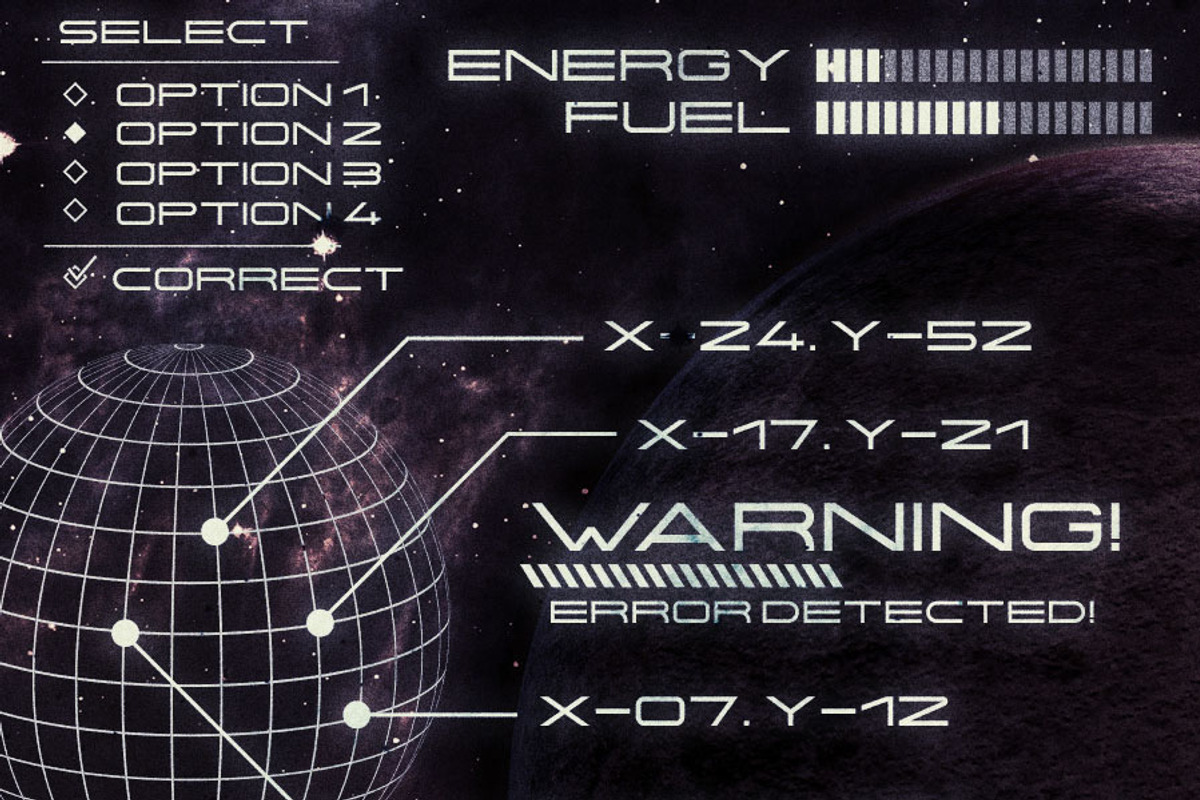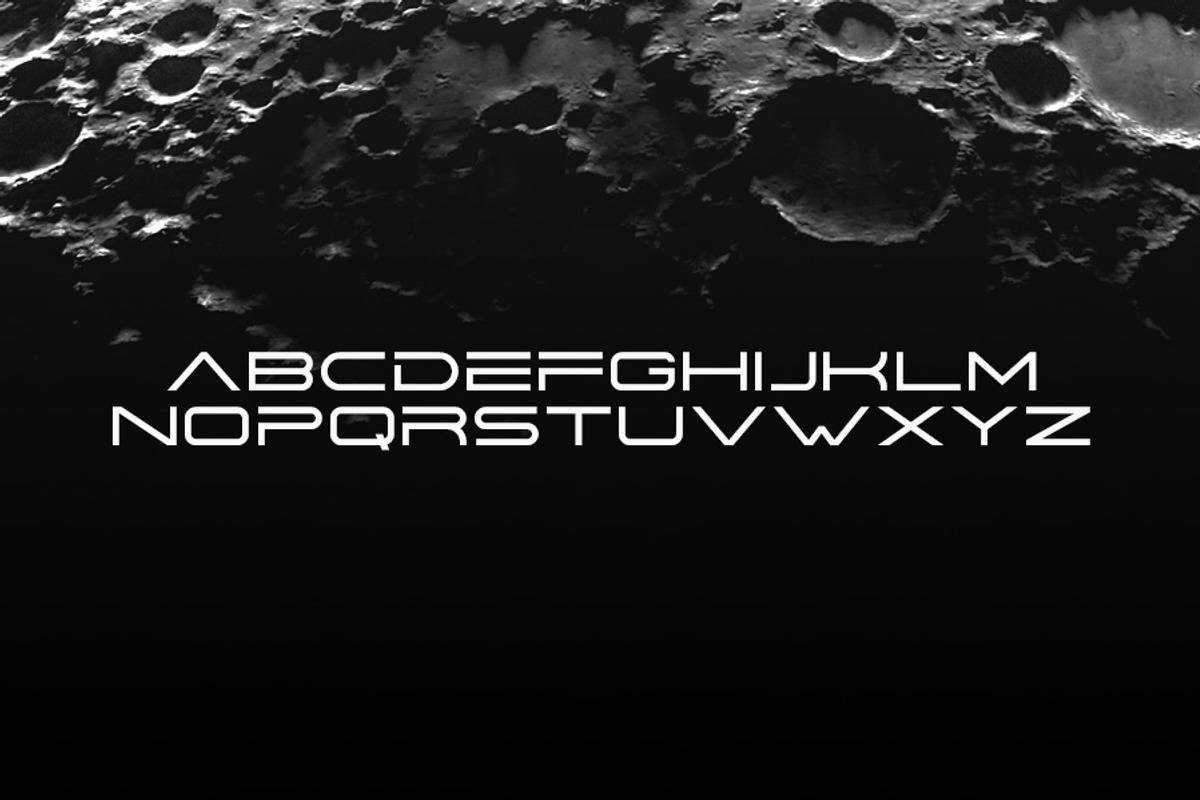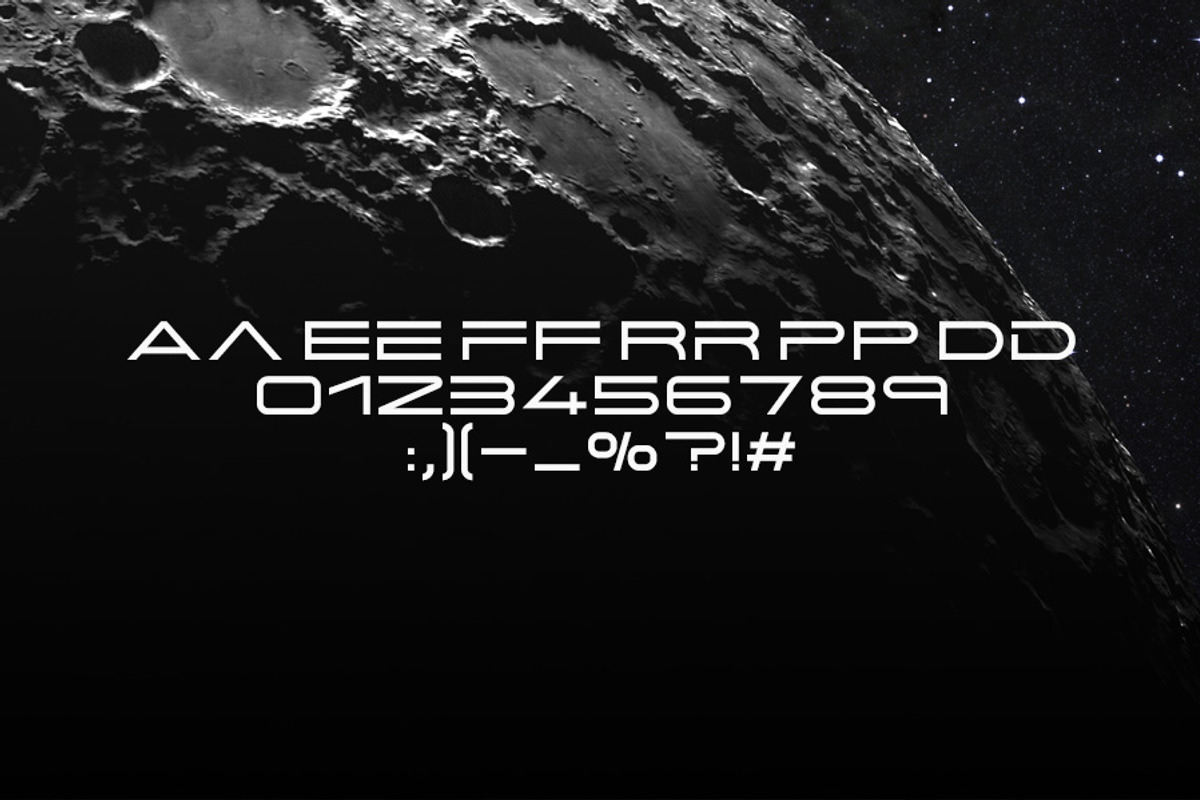
Centauri is a futuristic font with minimalist, wide letters. It includes English uppercase letters, alternate letters, basic punctuation and numbers. Designed with minimalist style and unique letterforms, a perfect choice to use on logos, labels, posters, packaging, books, movies, presentations, games, and much more.